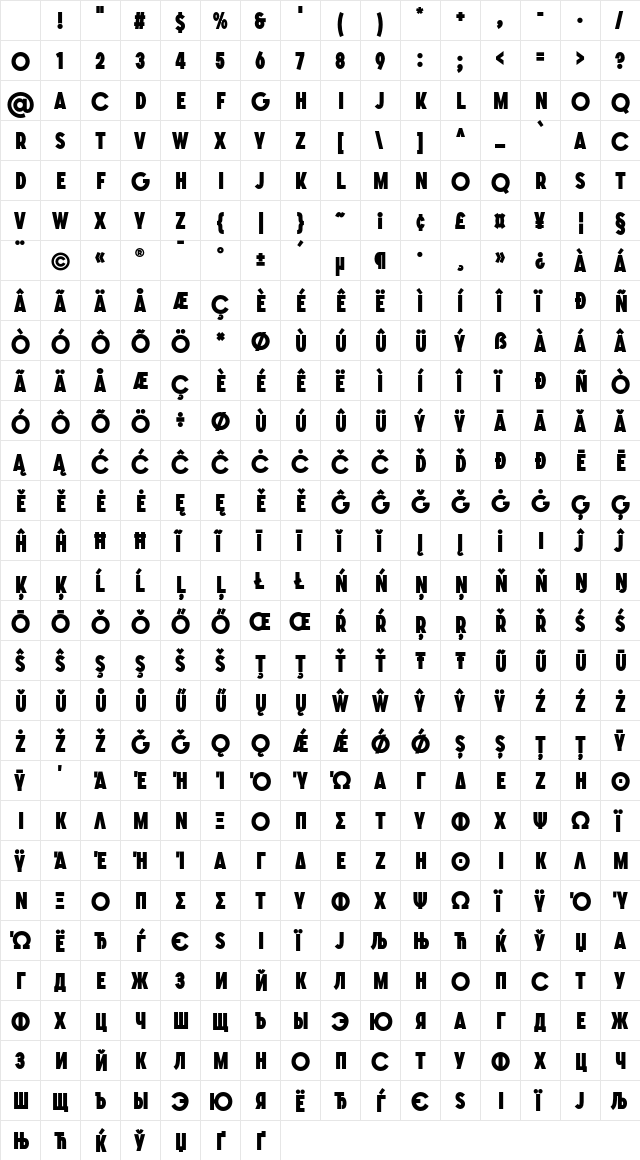
Complete SONGER Grotesque Heavy glyph index. Displaying only characters natively supported by SONGER Grotesque Heavy font.
SONGER Grotesque is a composed and adaptable typeface that performs quietly and consistently across a wide range of design contexts.